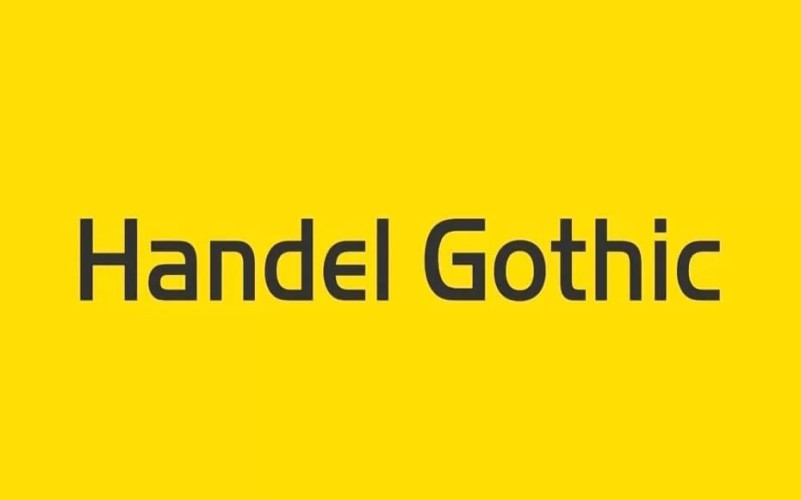
Handel Gothic Font
Handel Gothic fonts have been the mainstay of graphic communication for over 40 years – always looking today as tomorrow. Designed by Don Handel in the mid-1960s and used in the 1973 United Airlines logo developed by Saul Bass, Handel Gothic was an instant success when it was released to the graphic design community. The generous lowercase x height, full body counter, and square proportions make the design very legible in a variety of sizes. The slightly characteristic handel Gothic character shapes gave the dial a futuristic look 40 years ago that still holds its power to this day. In addition, its Uncial-like lowercase is instantly recognizable – and is unique among sans serif typefaces.